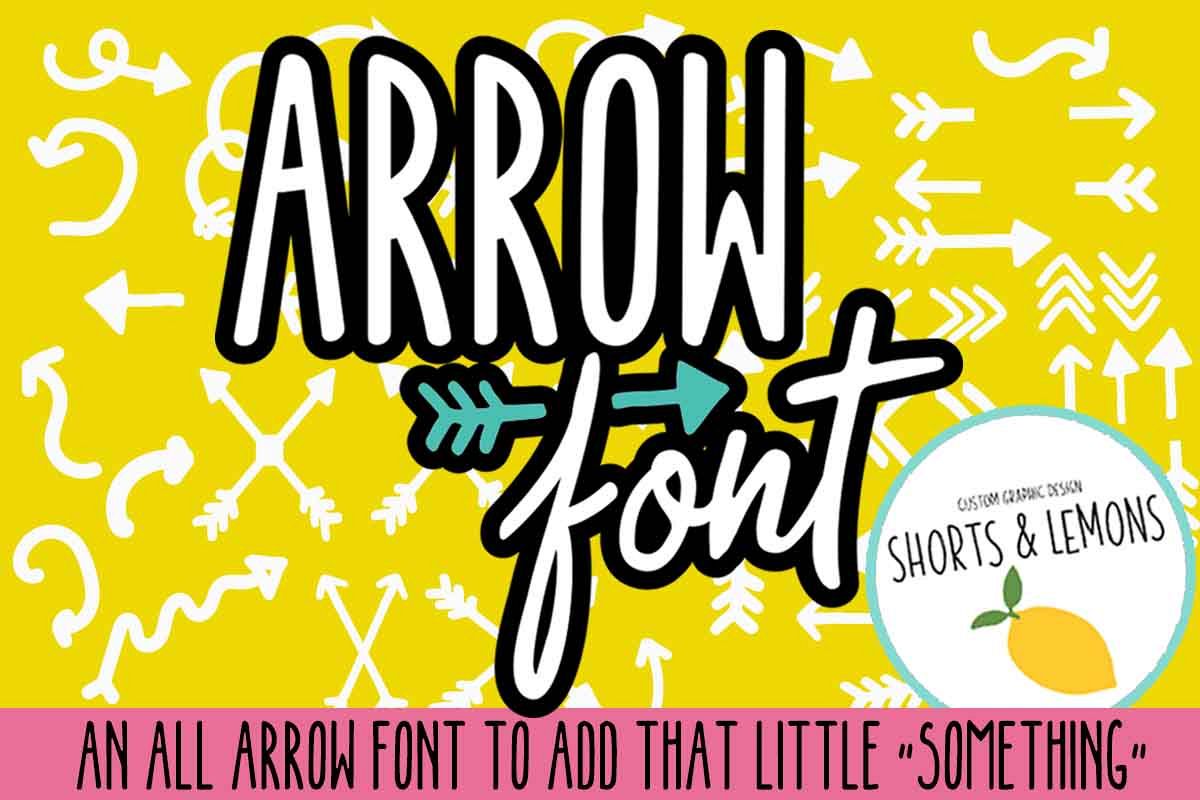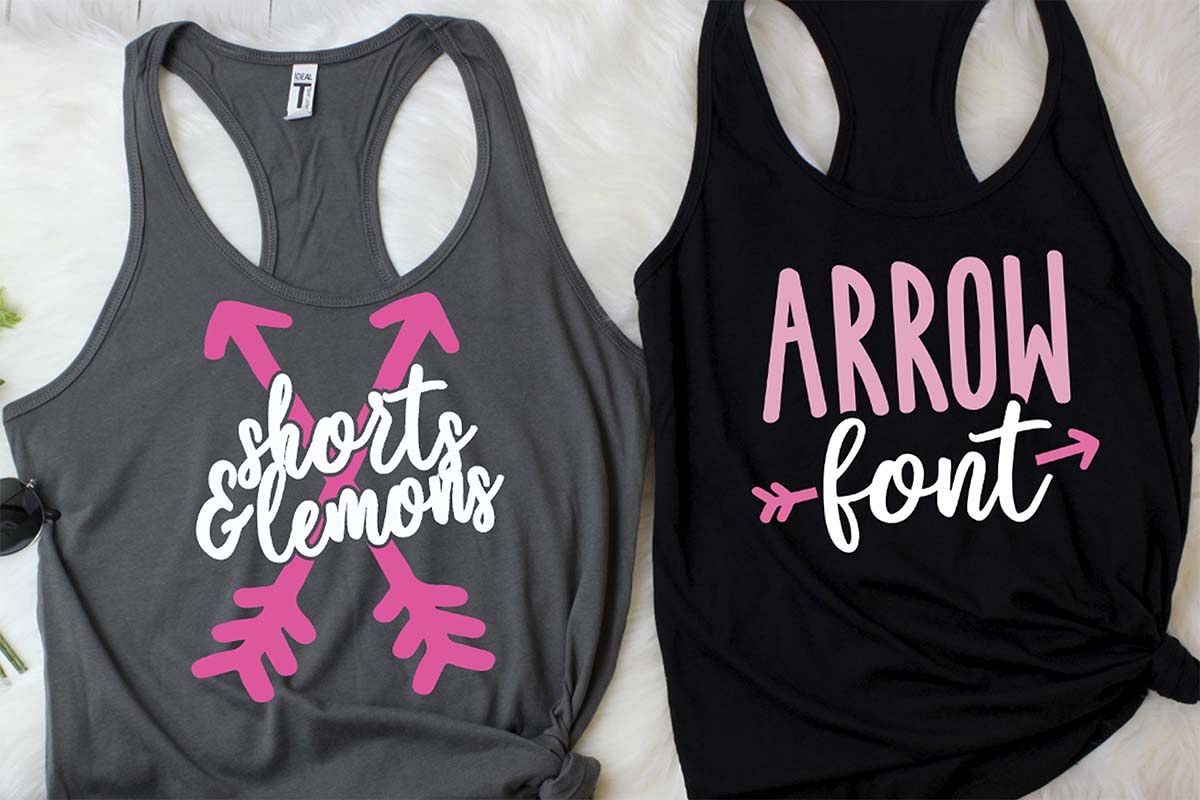
SUPER ARROW FONT
SUPER ARROW FONT is the brand new All Dingbat font by Shorts and Lemons.  Arrows add that little touch that can turn an ordinary project into an extraordinary one!! This font set contains 52 different arrows and is the perfect addition to your font collection!